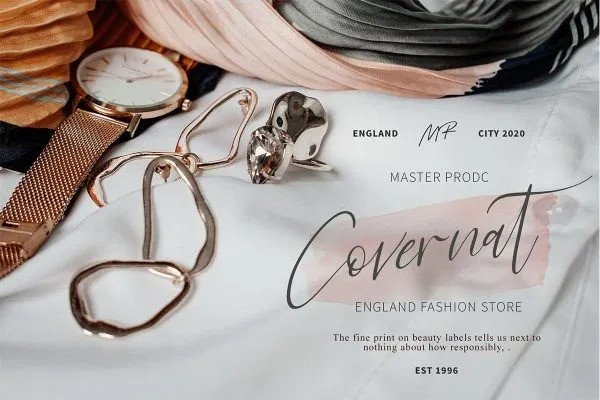
Sanflorida Script Font
This is a beautiful script Typeface created by StairCaseLab with handwriting style. A collection of letters and numbers suitable your projects also great for Logotype, Branding Design, Logo Design, Digital Lettering Arts, T-Shirt/Apparel, Poster, Magazine, Signs, Advertising Design, and any design needs.